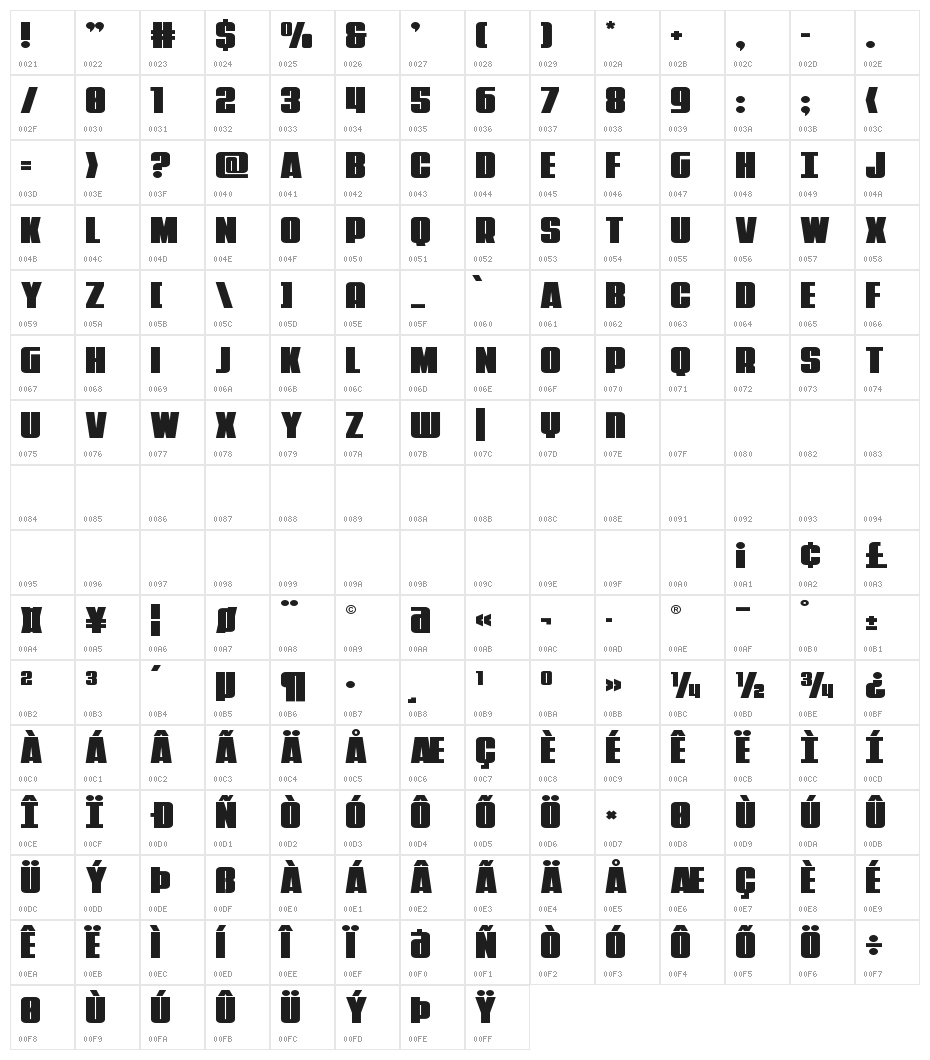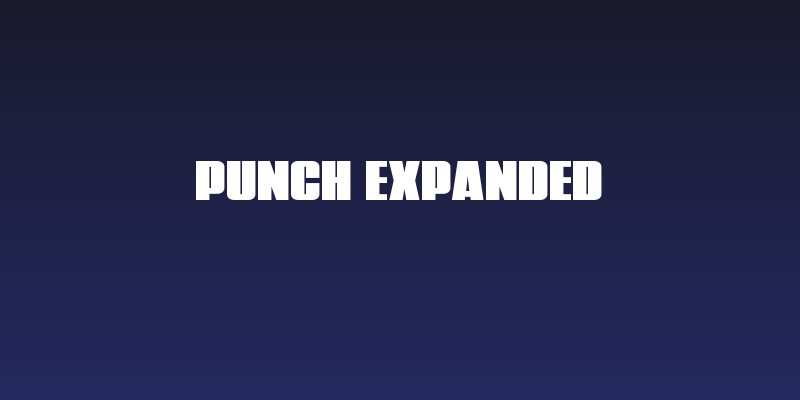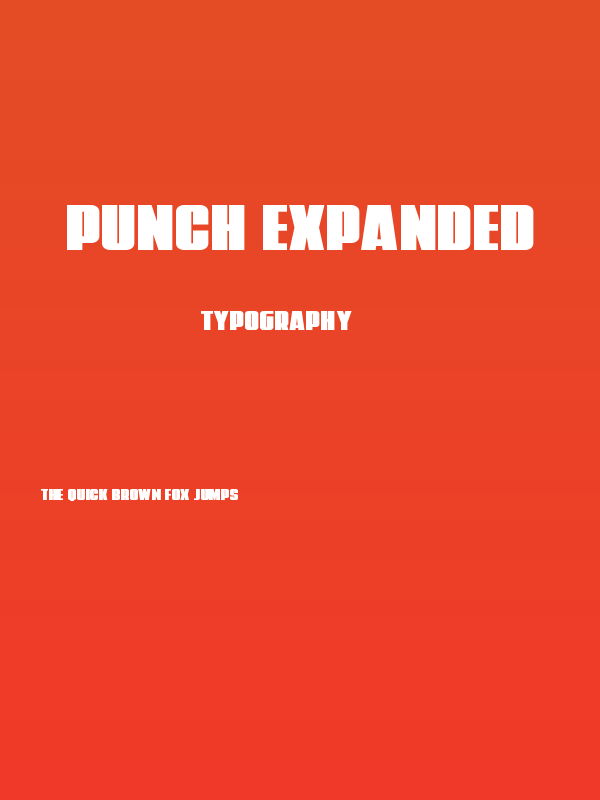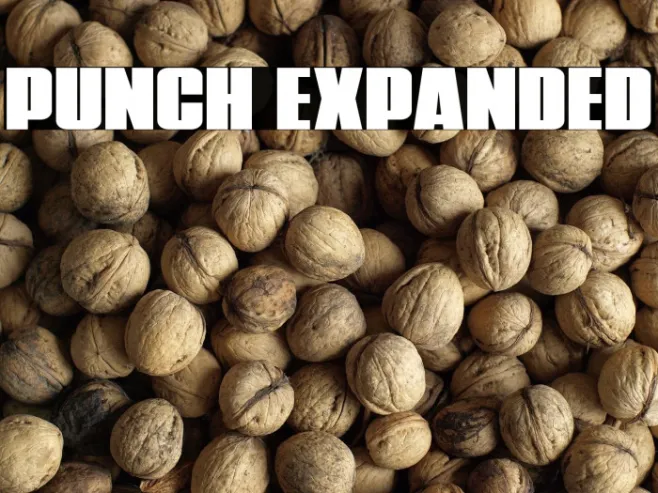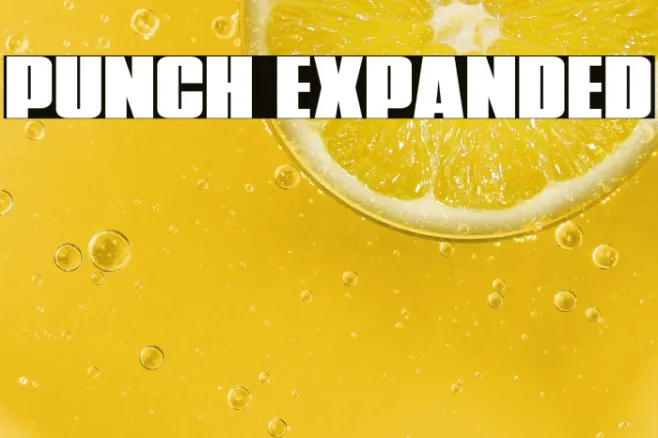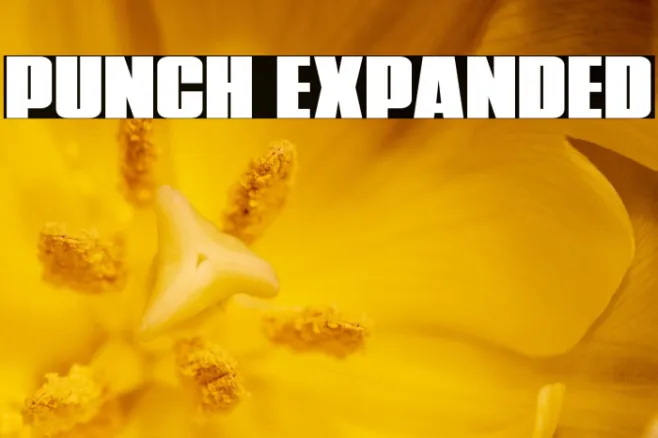
Punch Expanded Font
Punch Expanded Description
This font is a bold and impactful typeface characterized by its thick, blocky letters and strong presence. It features uppercase letters, numbers, and a variety of special characters. The design is consistent with a high level of uniformity across all characters, making it ideal for attention-grabbing headlines or titles. The strokes are solid and wide, contributing to its commanding appearance. The font's expanded width allows for a powerful visual impact, suitable for projects that require a bold statement. Its geometric shapes and clean lines give it a modern and assertive feel.
| Proposed Projects | Ideal for posters, banners, logos, and any design needing a strong, bold statement. |